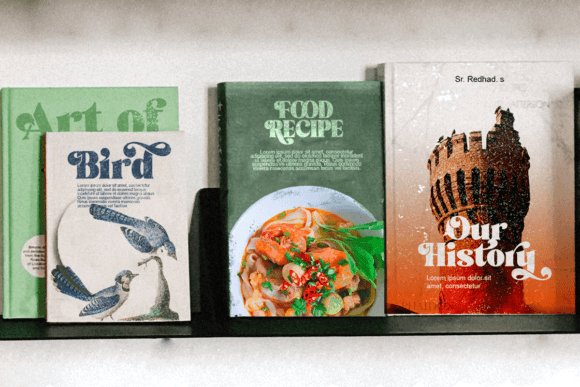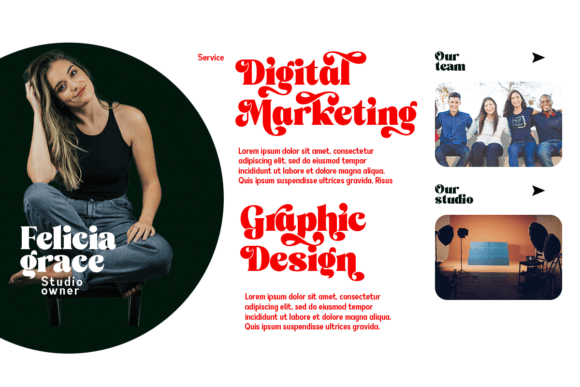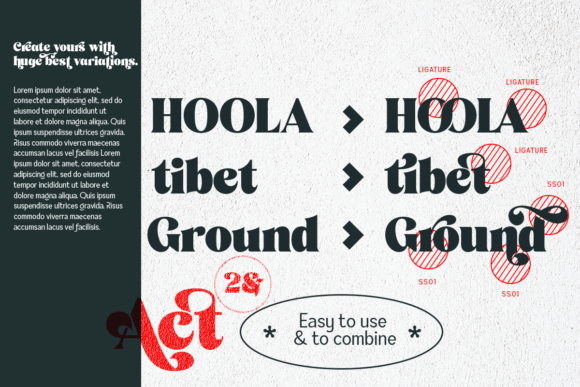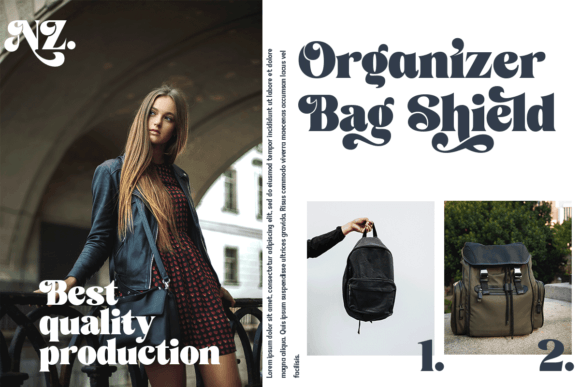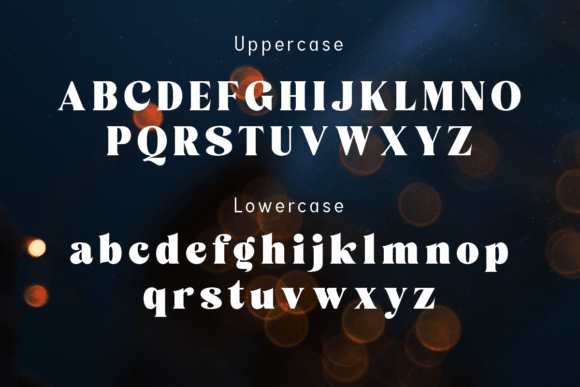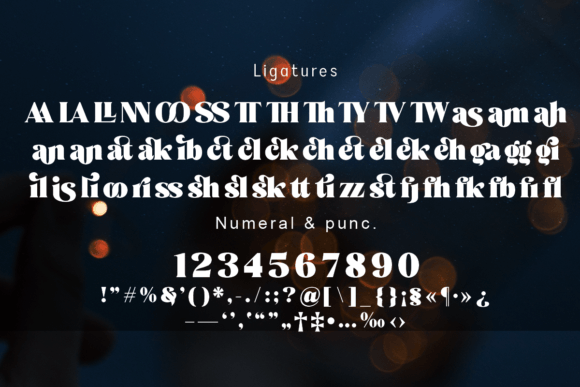
Introduction to Manunggal Font
Manunggal is a cool, stylish, modern, and fun serif font.
This font is great for headlines, magazines, logos, branding, and more This font is PUA encoded, which means you can access all of the glyphs and alternates with ease.
Key Features of Manunggal Font